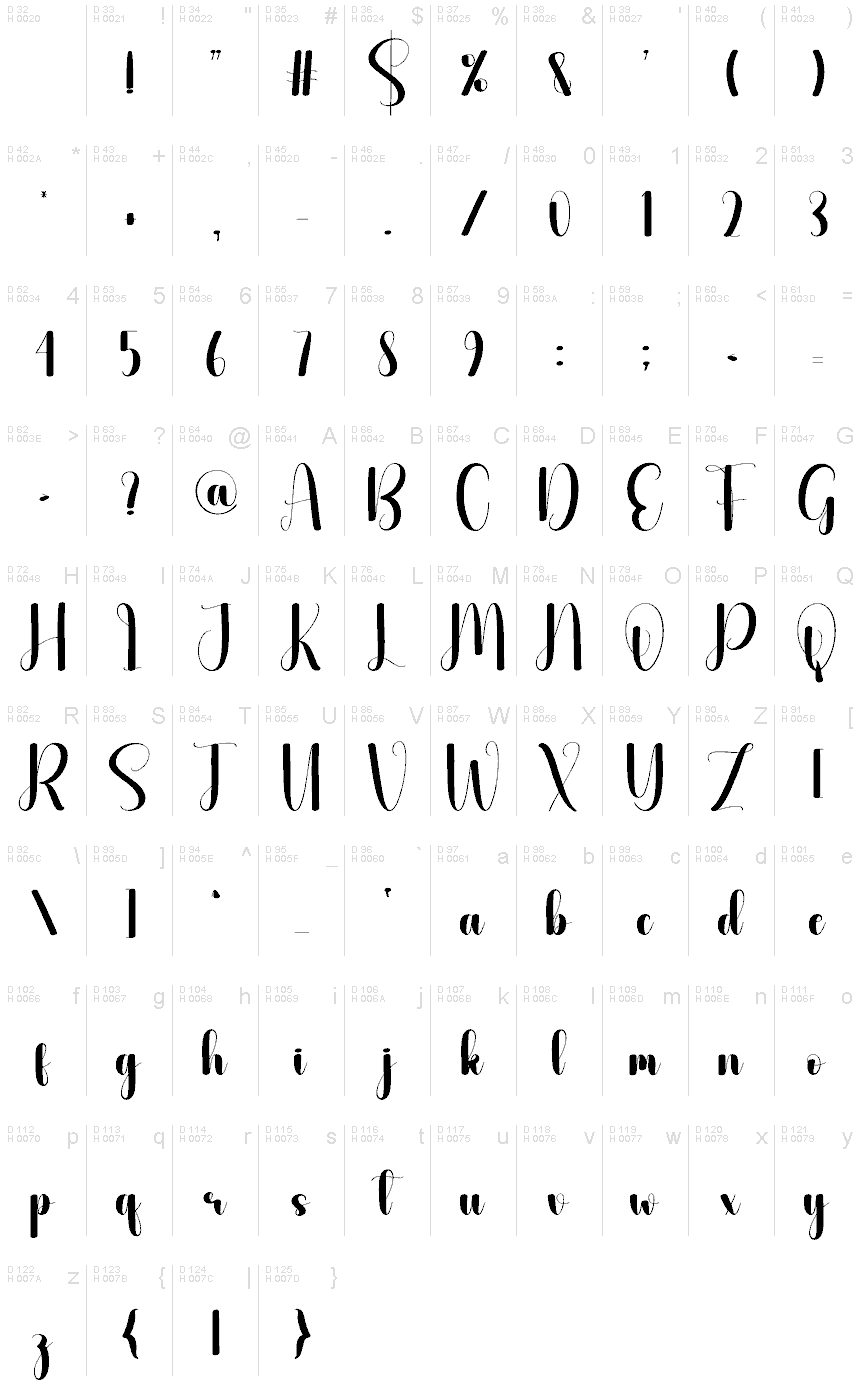
Pitchblack
Pitchblack font by Andi Moz is a free calligraphy font with a sophisticated and romantic aesthetic made for elegant designs. The flowing cursive scripts within this font have smooth transitions that only emphasize their stylish flair and versatile forms. And the characters in use manage to reflect strong personalities and present extraordinary changes which only add authenticity to your projects.